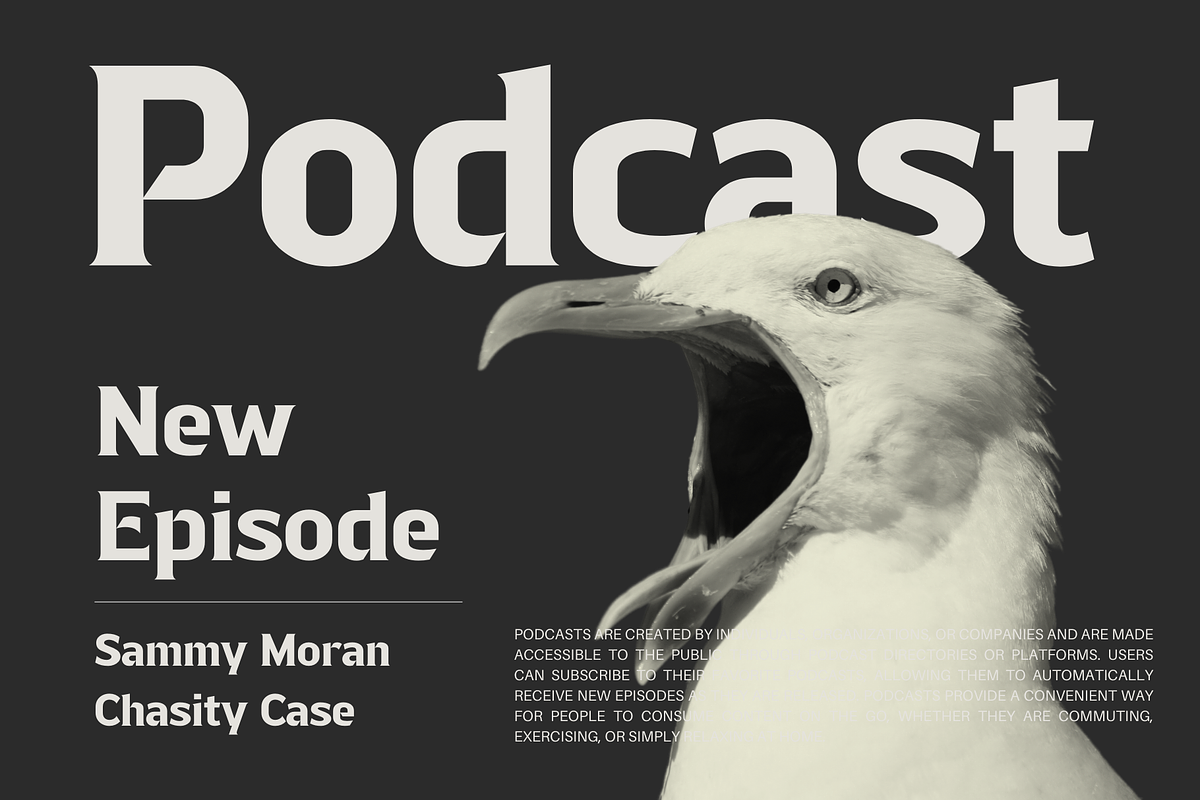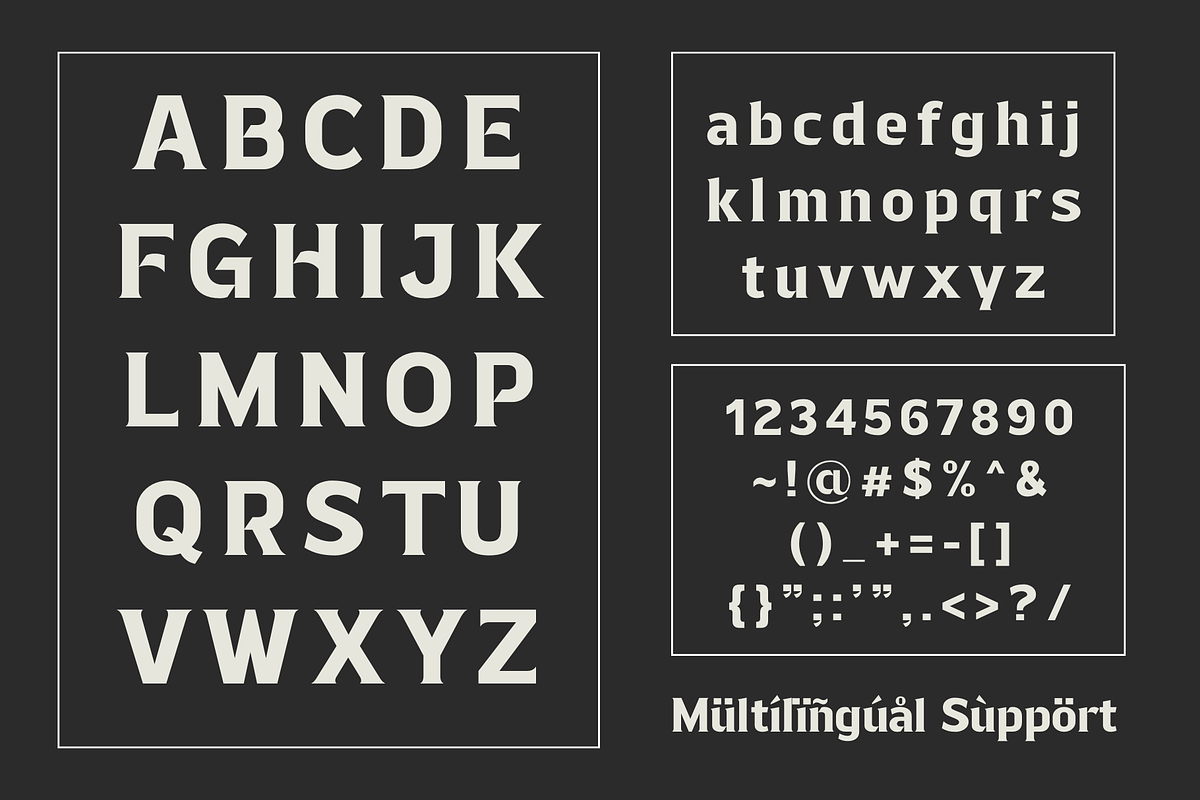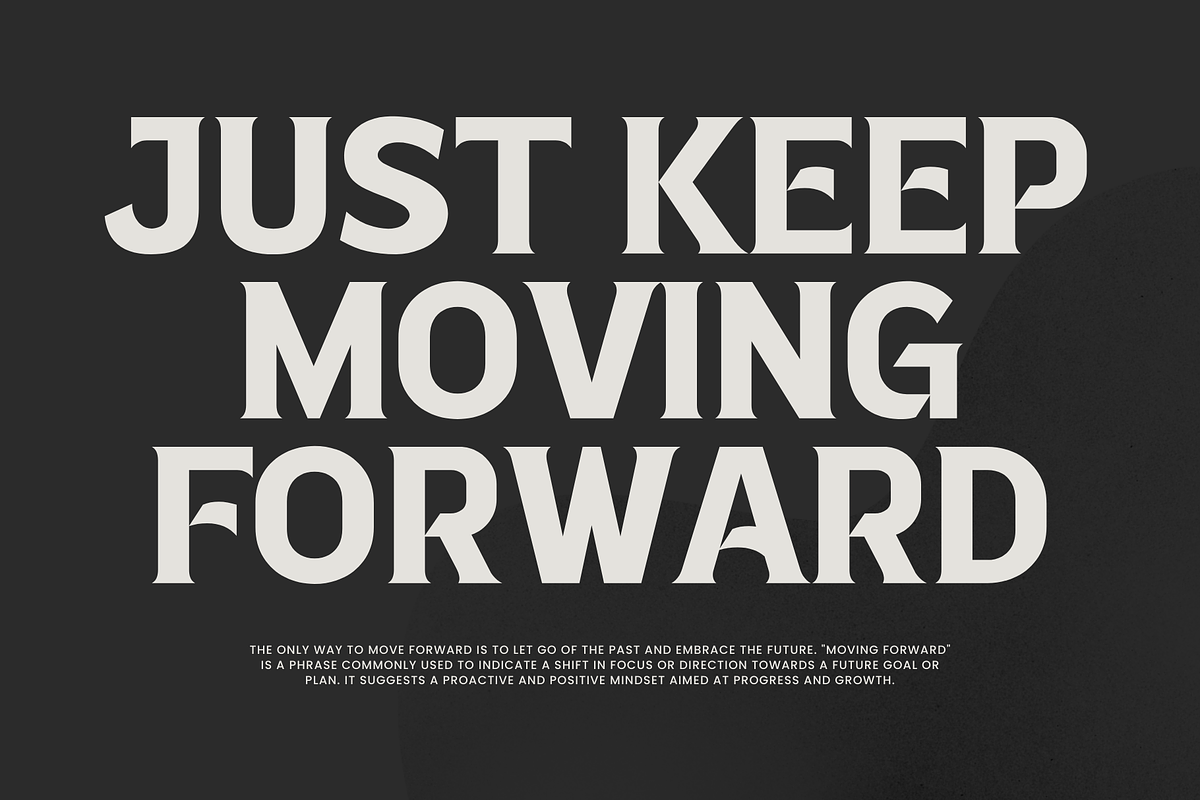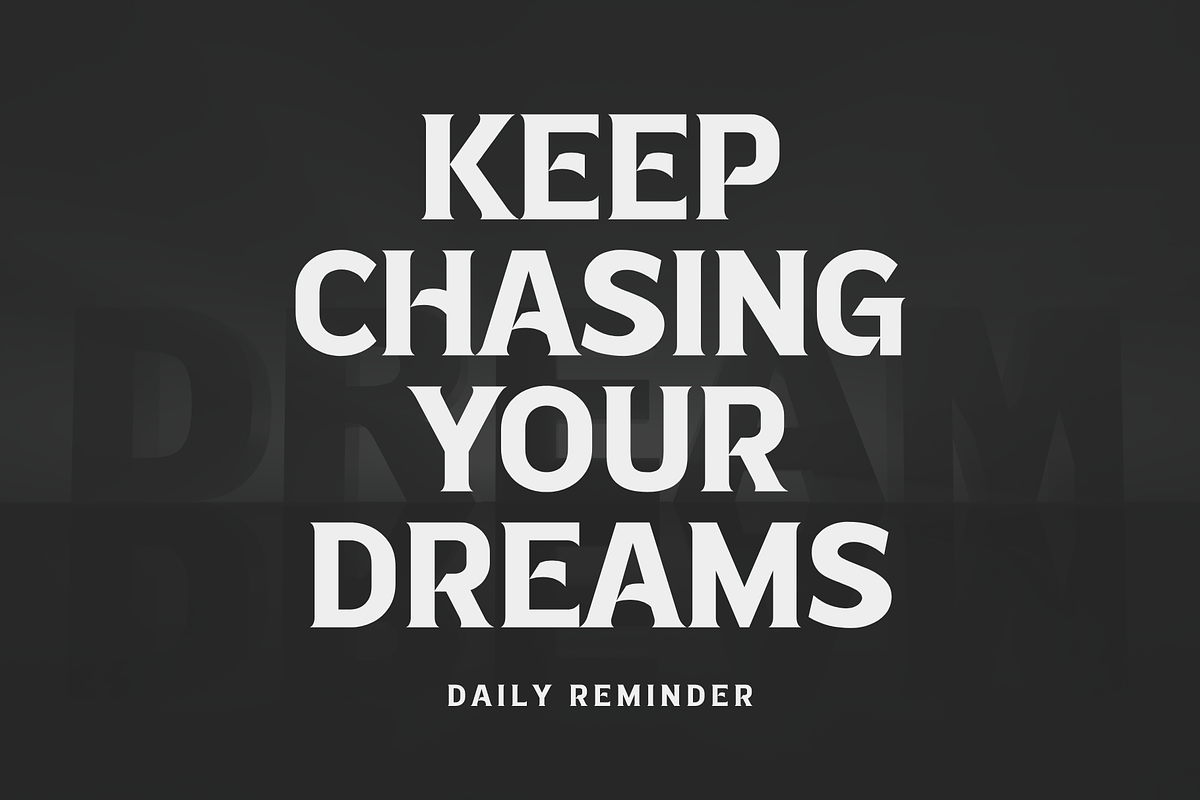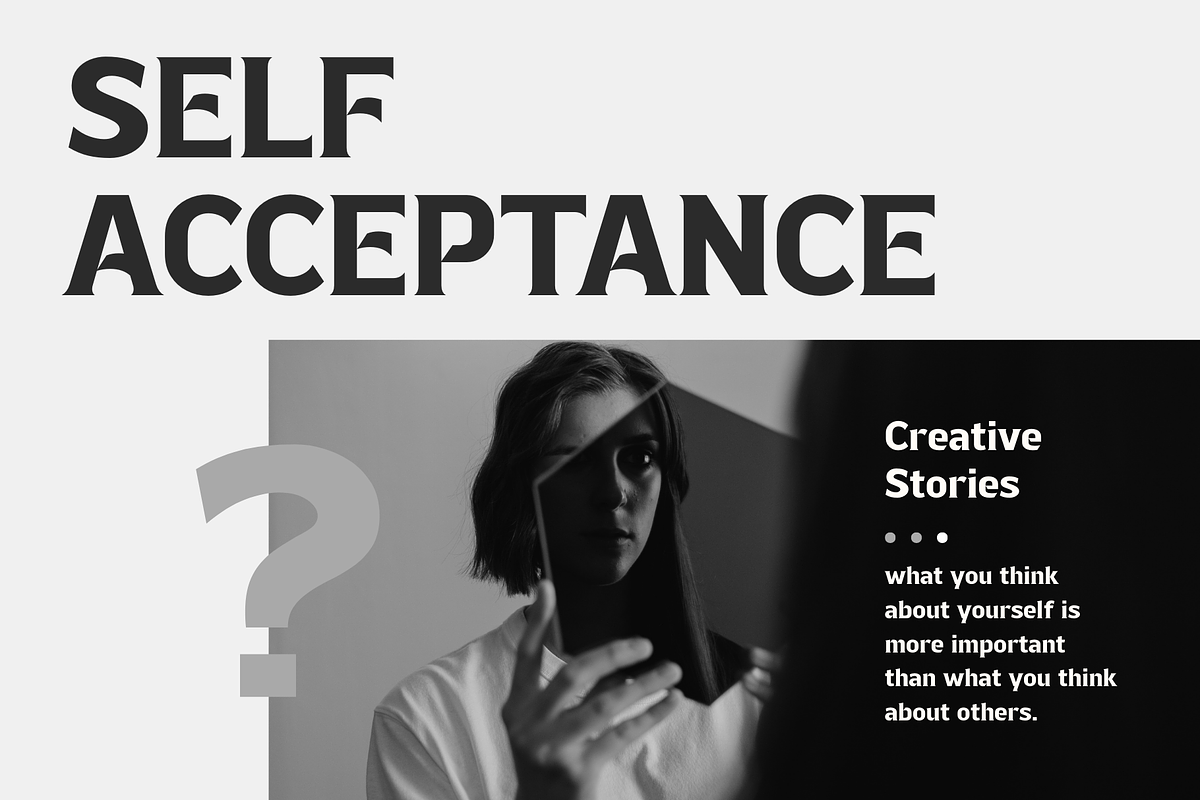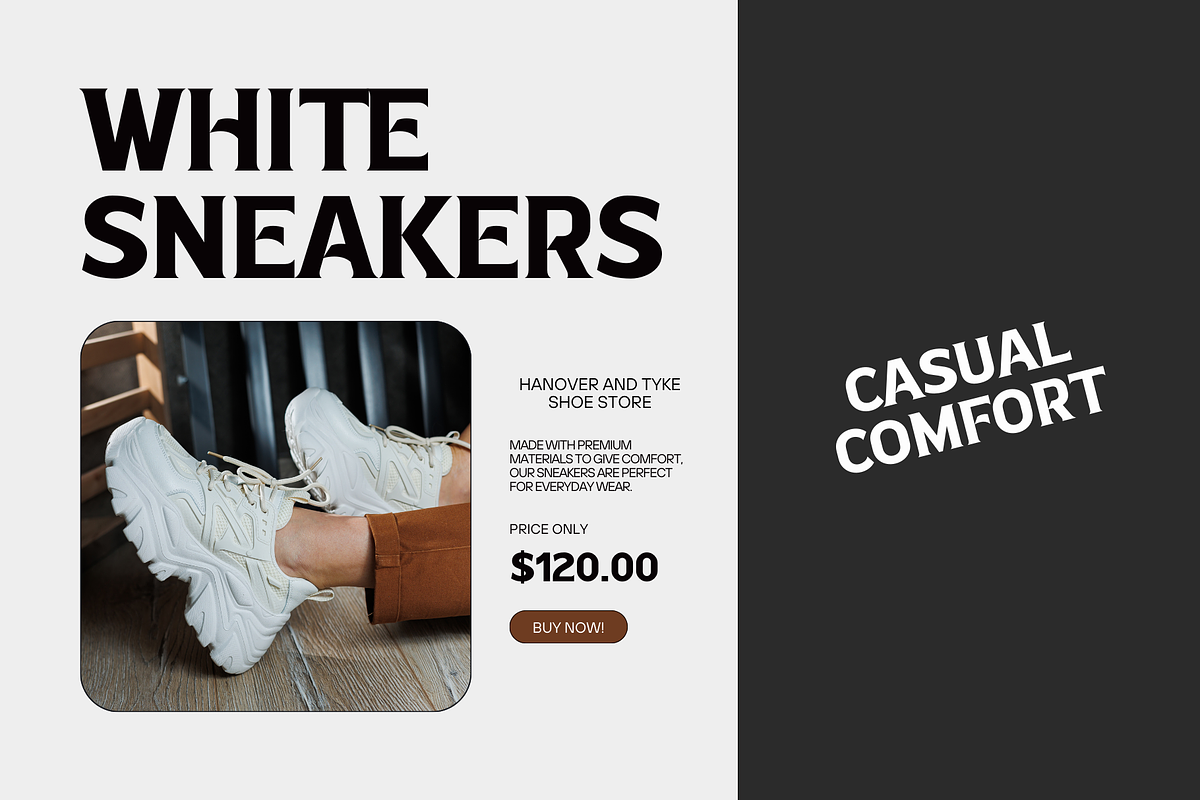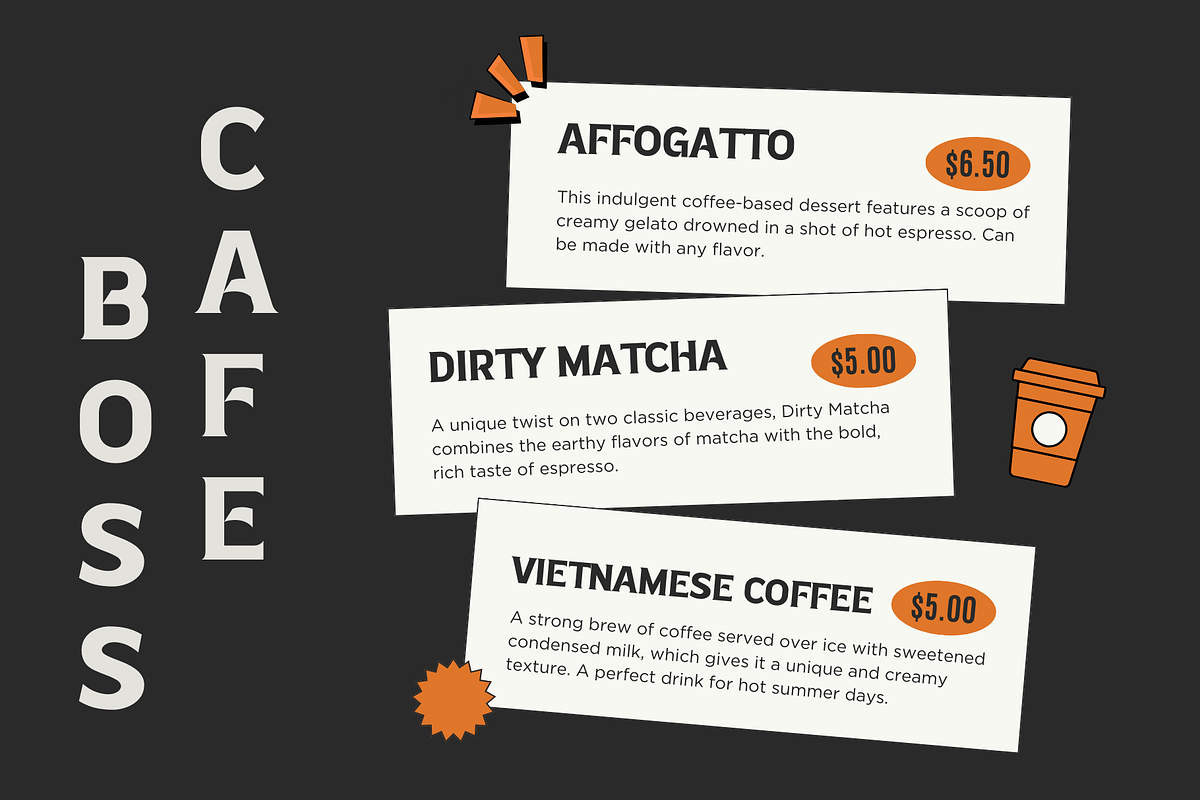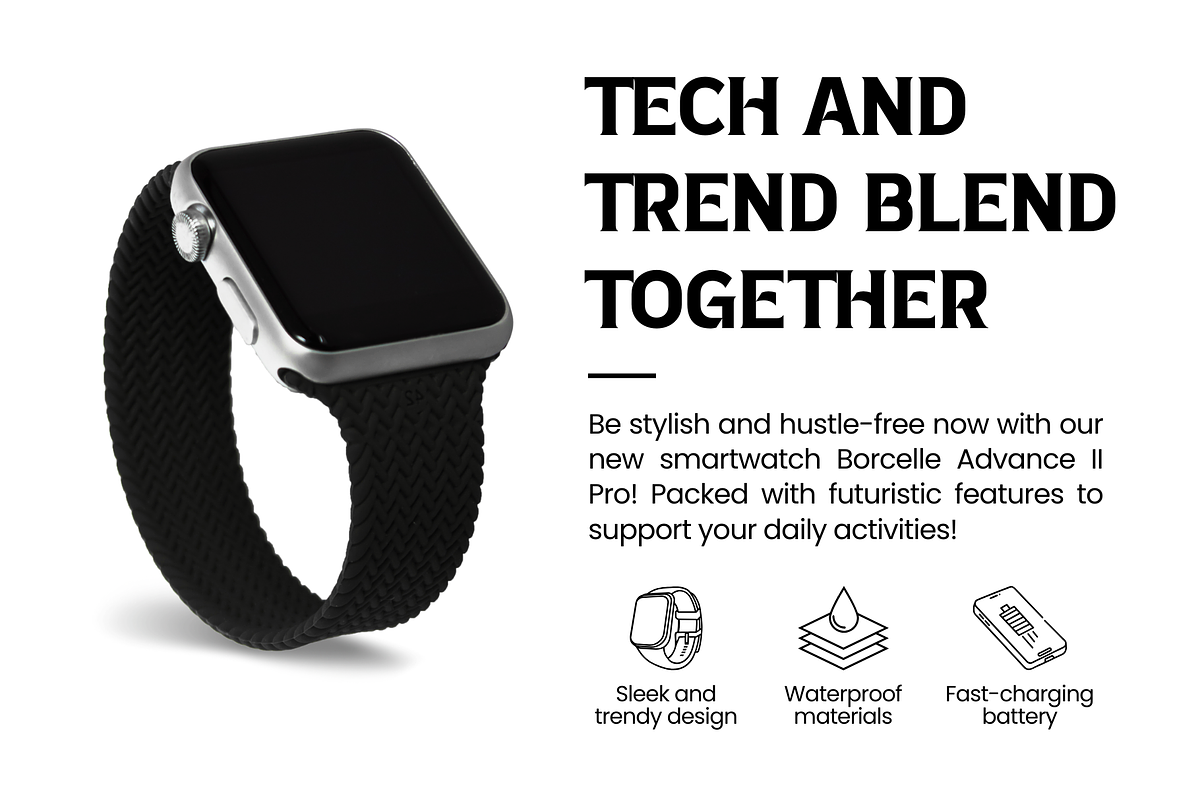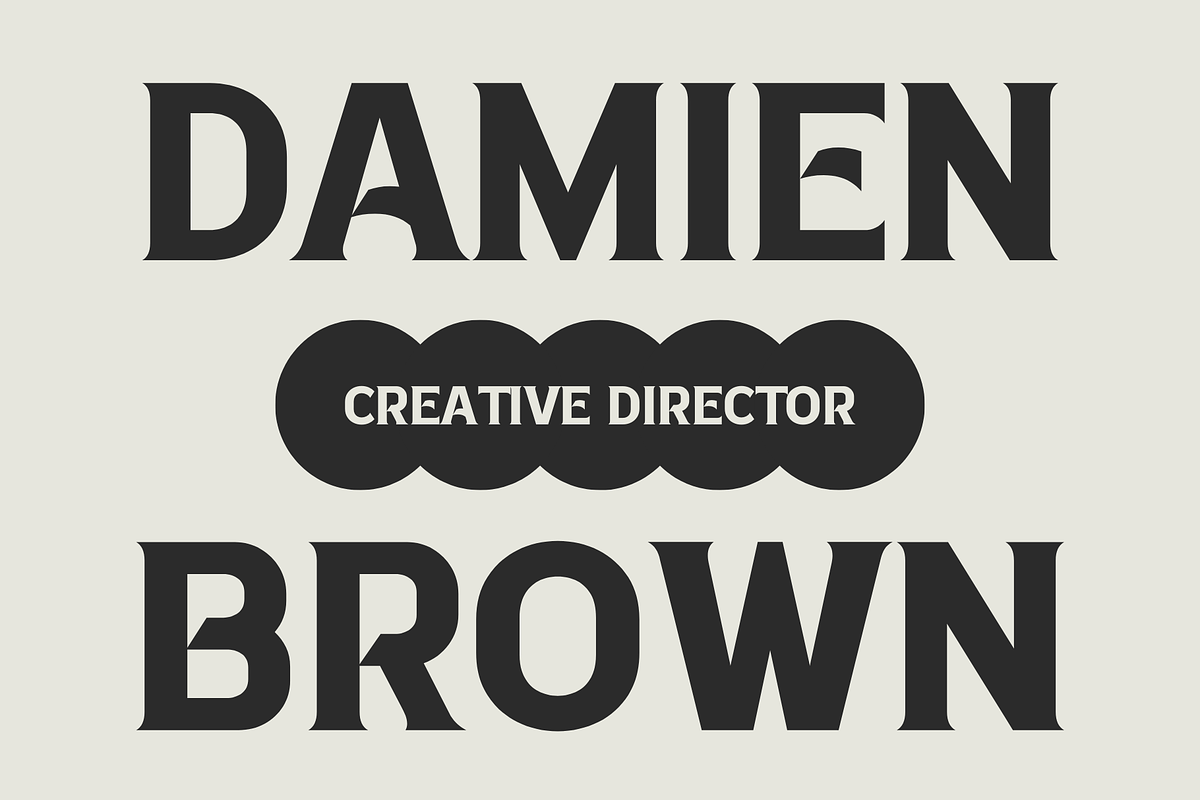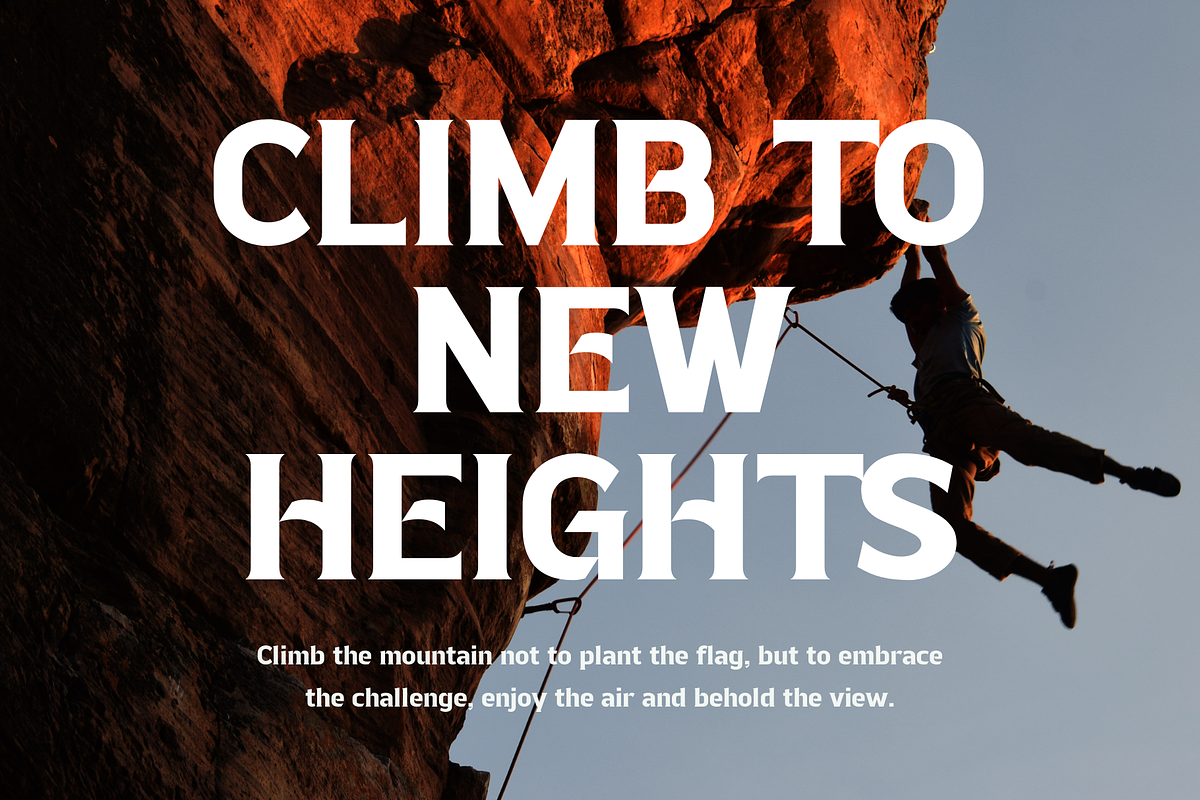
Gildeon - Bold Display Typeface
"Gildeon" is a bold serif display typeface that commands attention with its powerful letterforms. Designed for impactful statements and strong visual presence, this font strikes the perfect balance between boldness and sophistication. Whether used for headlines, posters, or branding, "Gildeon" stands out with its commanding strokes and confident design, making it the ideal choice for projects that demand a bold and assertive typographic style.